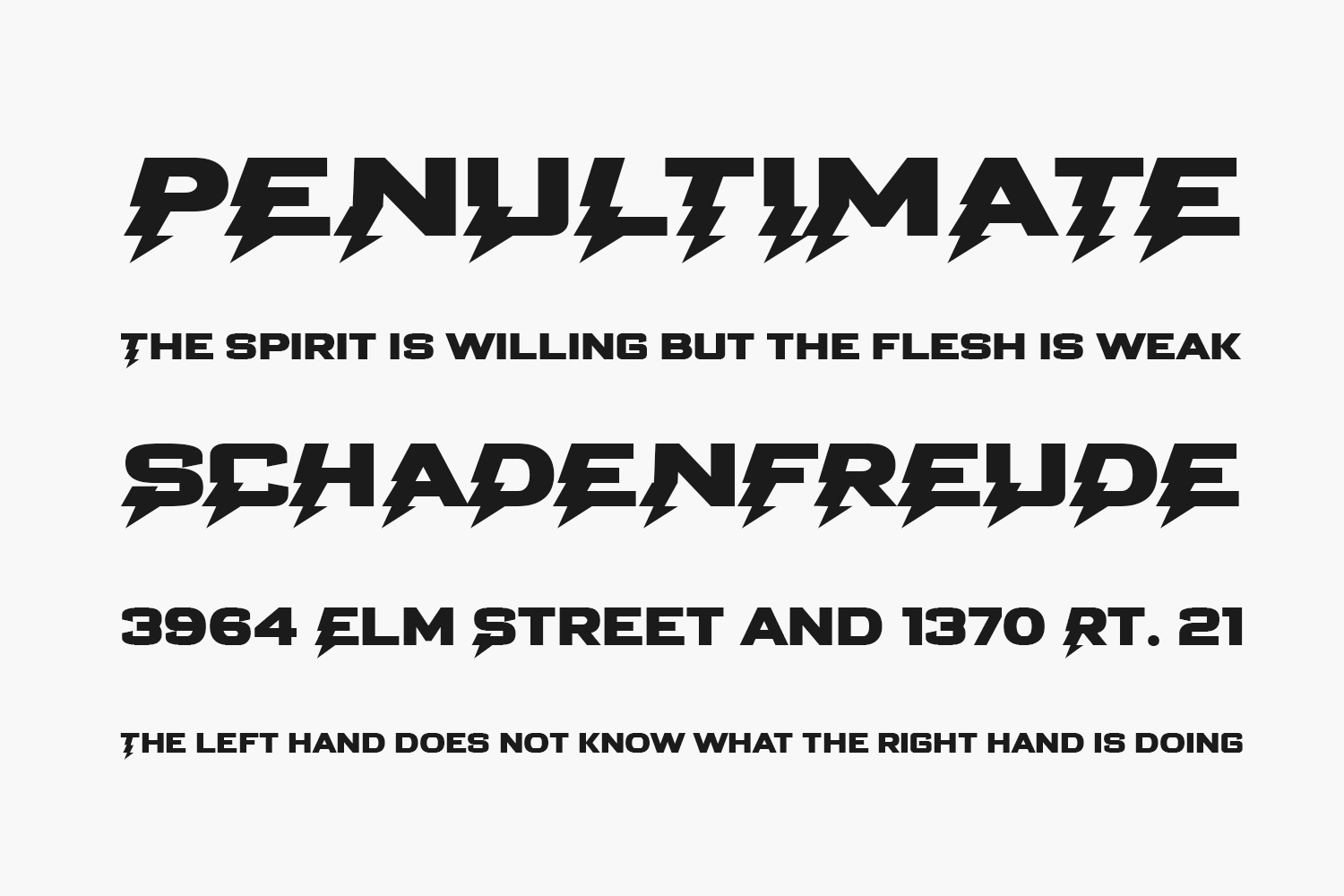
Dark Adam
Dark Adam Free Font is a hauntingly beautiful typeface that combines the elegance of modern typography with the dark and brooding spirit of gothic design. Its sharp, angular lines evoke a sense of danger and intrigue, while its sleek curves and serifs add a touch of refinement and sophistication.
With its bold letterforms and striking presence, Gothic Modern Dark Adam commands attention and demands respect. Whether used for titles and headings or body text, this font is sure to make a statement and leave a lasting impression.